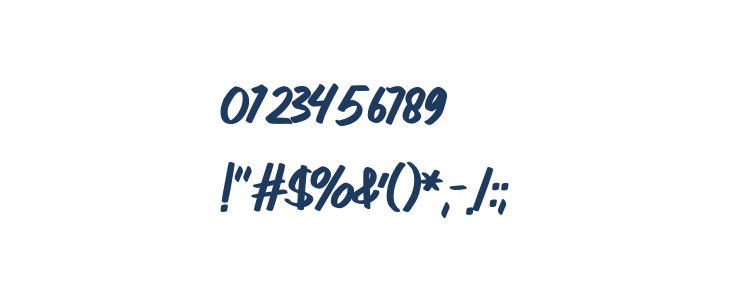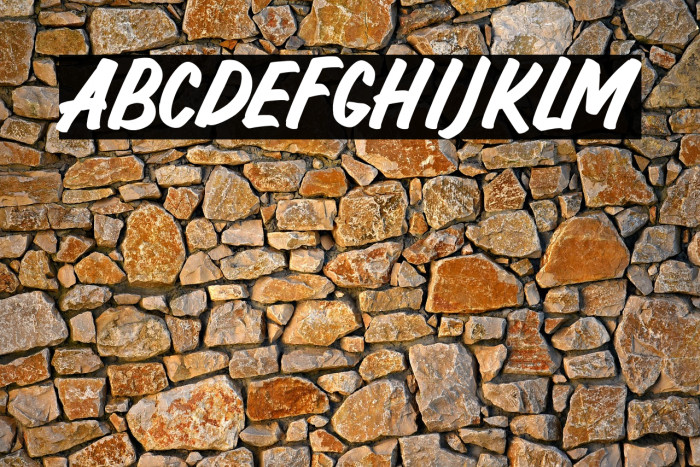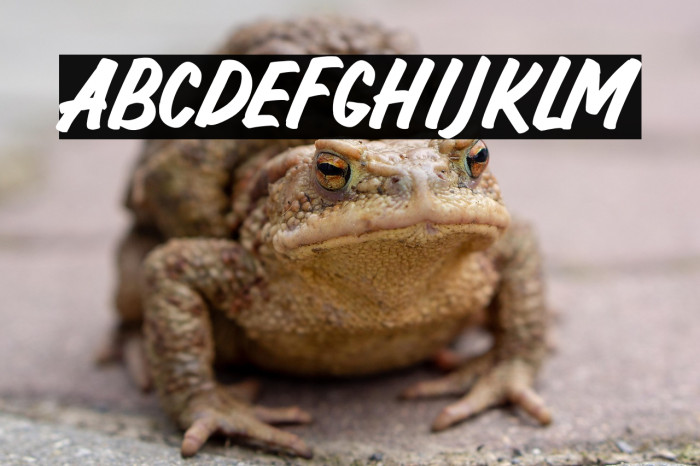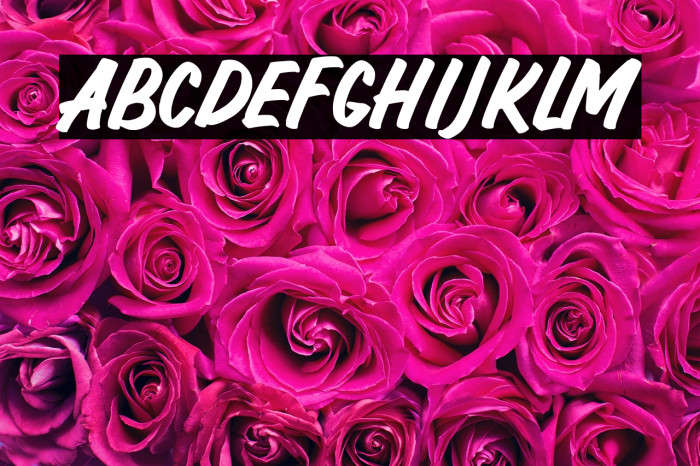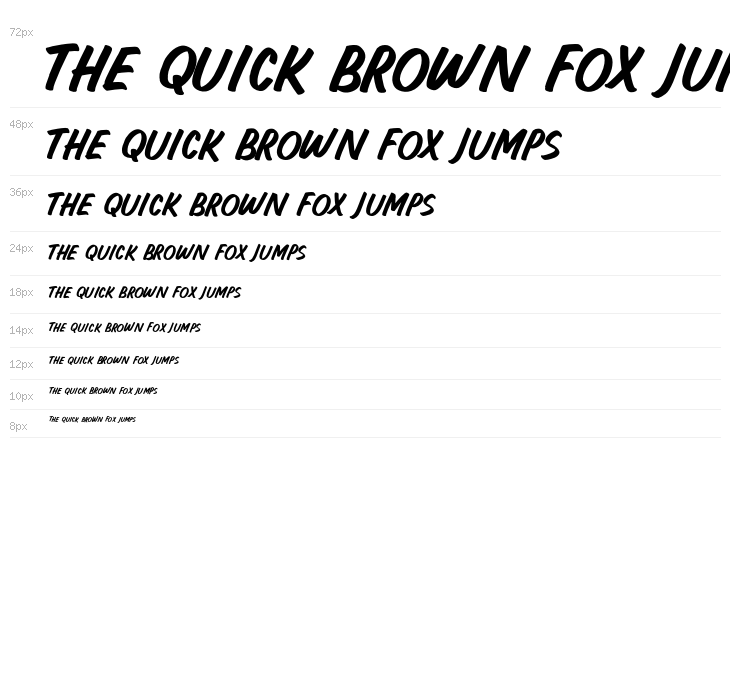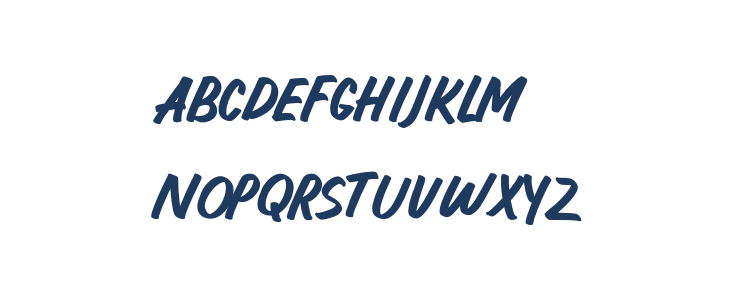
LEMONPIE Font
LEMONPIE Description
This font features a bold and energetic script style, characterized by its dynamic and flowing letterforms. The strokes are thick and consistent, giving it a strong presence. The uppercase and lowercase letters maintain a cohesive look, with slightly slanted angles that add a sense of movement. The numbers and special characters are designed to match the overall style, ensuring uniformity across all text elements. This font exudes a playful yet assertive vibe, making it suitable for projects that require a touch of personality and flair.